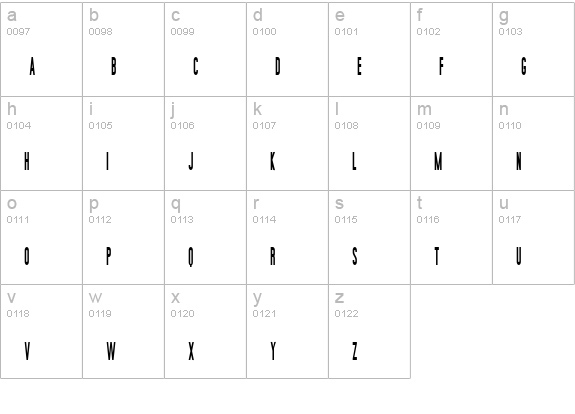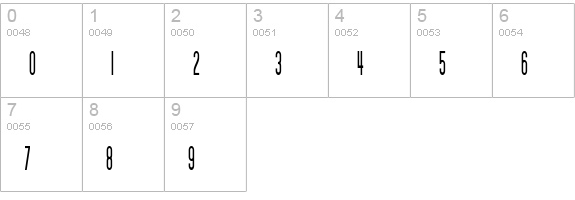
Movie Poster Condensed Bold is a strong, high-contrast, condensed-width variant in the Movie typeface family \xE2\x80\x94 well suited to headlines, attention-grabbing titles, and strong calls-to-action.
Introducing Movie Poster Condensed Bold font, a striking and bold typeface designed to capture attention and make a statement. With its condensed and sleek design, this font is perfect for creating eye-catching movie posters, headlines, and titles that demand to be noticed. The Movie Poster Condensed Bold font exudes a sense of drama and sophistication, making it ideal for projects that require a touch of elegance and flair. Whether you are working on a film poster, advertising campaign, or any other creative project, this font will help you stand out from the crowd. Best of all, Movie Poster Condensed Bold font is available for free download at FontsMarket.com. Take advantage of this opportunity to enhance your designs with a font that is both stylish and professional. Download now and unleash your creativity with Movie Poster Condensed Bold font!